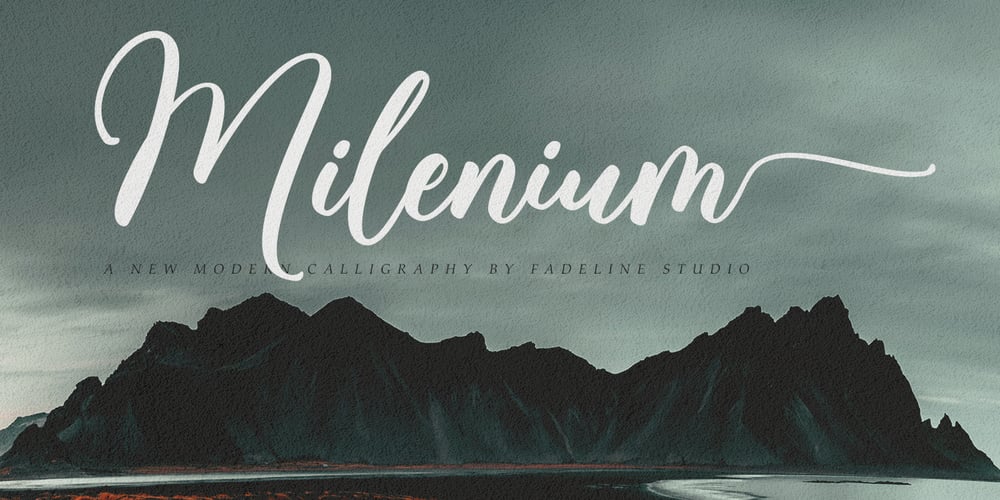
Milenium Font Family was designed by Juni Fadil Putra and published by FadeLine Studio. Milenium contains 1 styles and family package options. This is a new modern calligraphy font in casual and simple style. This font is italic and semibold that is made slowly and thoroughly which aims to convey the character of writing that is elegant, neat, simple, bold and still stylish.With a style like this, this font will be suitable in use for logo’s, branding projects, homeware designs, product packaging, mugs, quotes, posters, shopping bags, logo’s, t-shirts, book covers, name card, invitation cards, greeting cards, and all your other lovely projects.